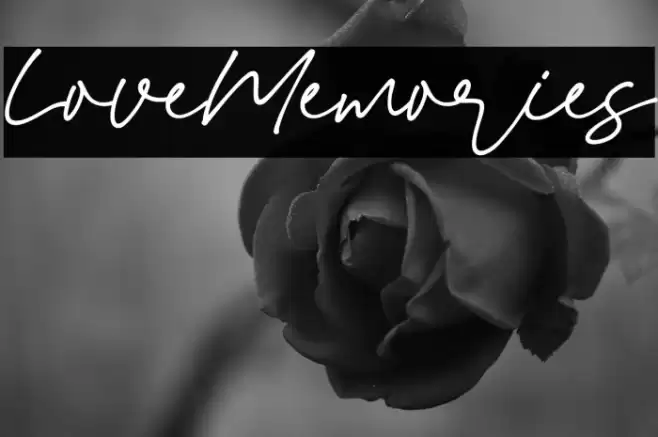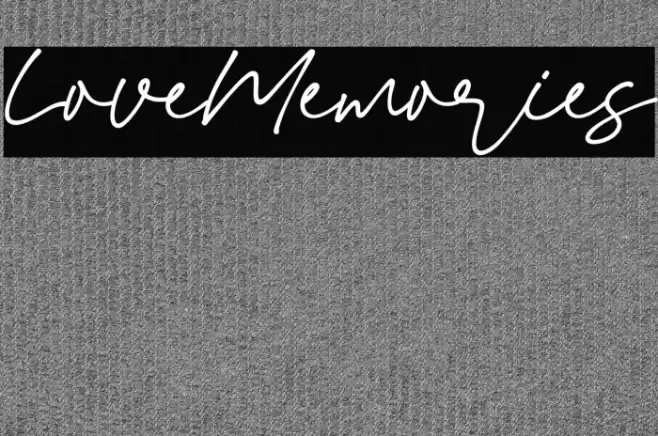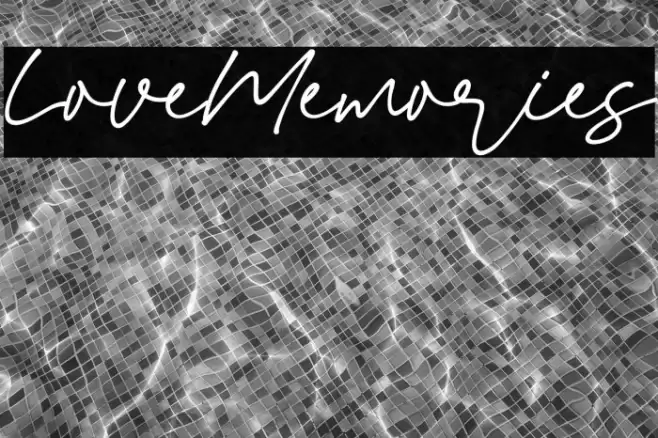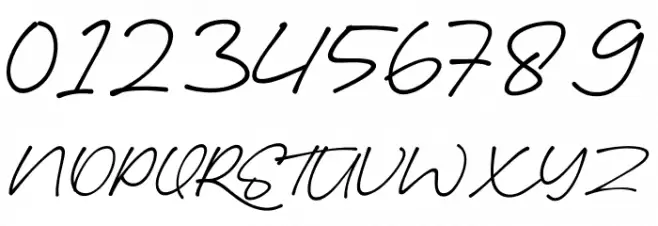
Love_Memories Font
Love_Memories Description
This font features a flowing, cursive style that mimics natural handwriting. The letters are connected, creating a seamless and elegant appearance. The strokes are smooth and consistent, with a slight variation in thickness that adds a touch of sophistication. The uppercase letters maintain a graceful form, while the lowercase letters exhibit a playful yet refined character. The numerals are clear and legible, complementing the overall aesthetic. This font exudes a personal and intimate feel, making it ideal for projects that require a touch of elegance and warmth.
A cursive, handwritten font with smooth, connected strokes and elegant style from Regular fonts.
- Proposed Projects: Ideal for wedding invitations, personal letters, greeting cards, and branding that requires a personal touch.
- Overall Style: Elegant, Personal
- Use Case: Invitations, Personal letters, Greeting cards